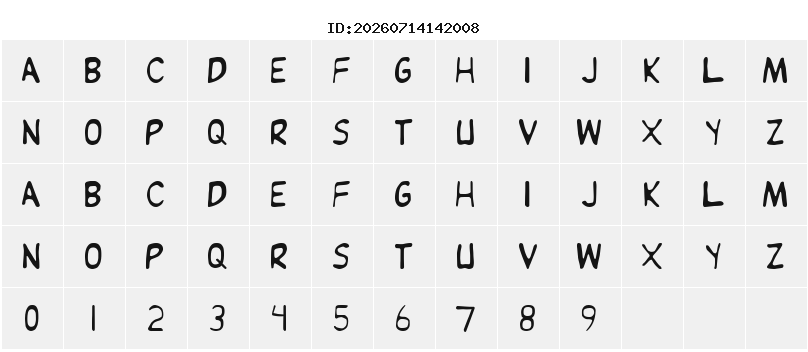
Jean is Dead Preview
• Font Name: Jean is Dead
• Full Font Name: Jean is Dead
About Jean is Dead.ttf
Jean is Dead.ttf is a modern, elegant sans-serif font designed for ultimate readability and visual harmony. Perfect for branding, headlines, web design, and print materials.